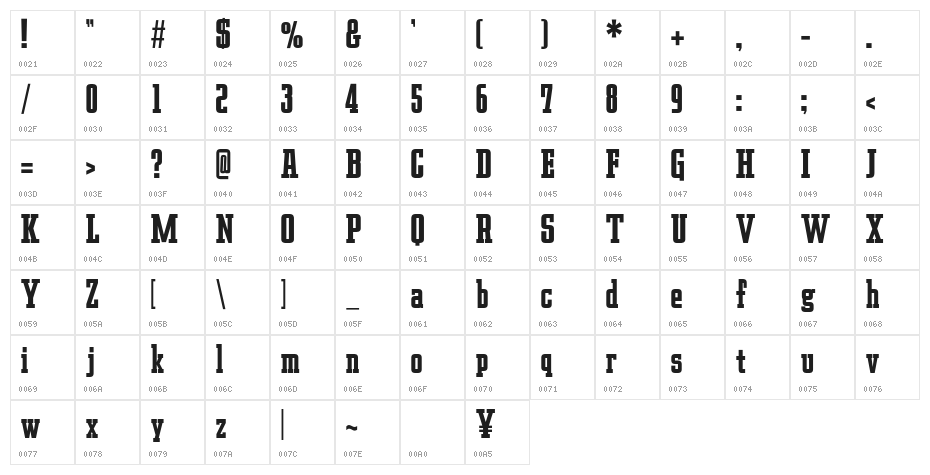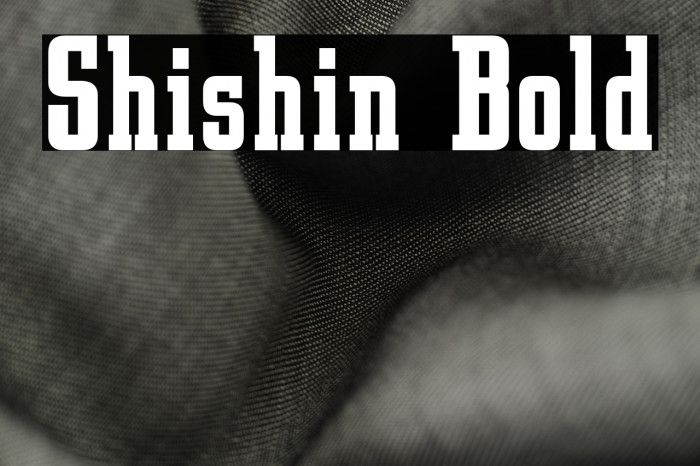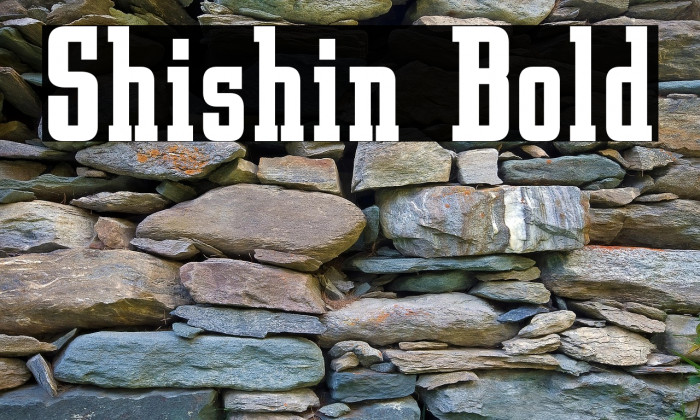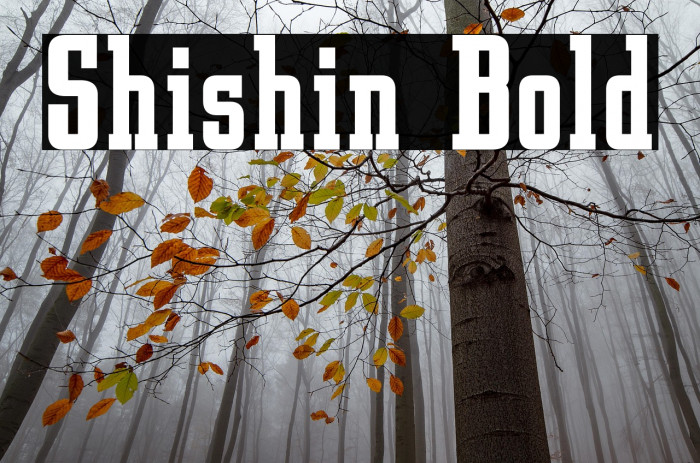
Shishin Bold Font
Shishin Bold Description
This font features a bold and robust design, characterized by thick, strong strokes and a commanding presence. The uppercase letters are tall and imposing, with a uniform width that gives a sense of stability and strength. The lowercase letters maintain a similar weight, ensuring consistency across the typeface. The numbers are equally bold, making them stand out prominently. Special characters are designed with the same attention to detail, ensuring they integrate seamlessly with the rest of the font. The overall style is reminiscent of vintage poster fonts, making it ideal for projects that require a touch of nostalgia and impact.
| Proposed Projects | Ideal for posters, headlines, branding, and any design requiring a bold, vintage aesthetic. |